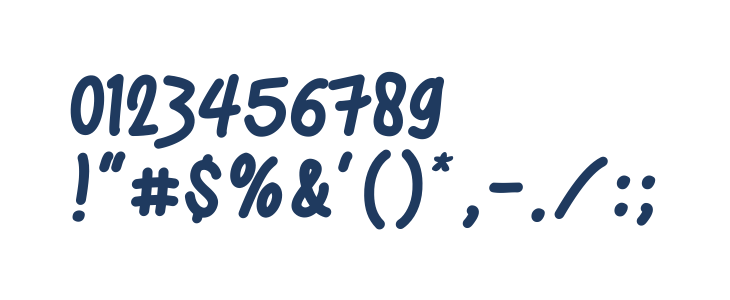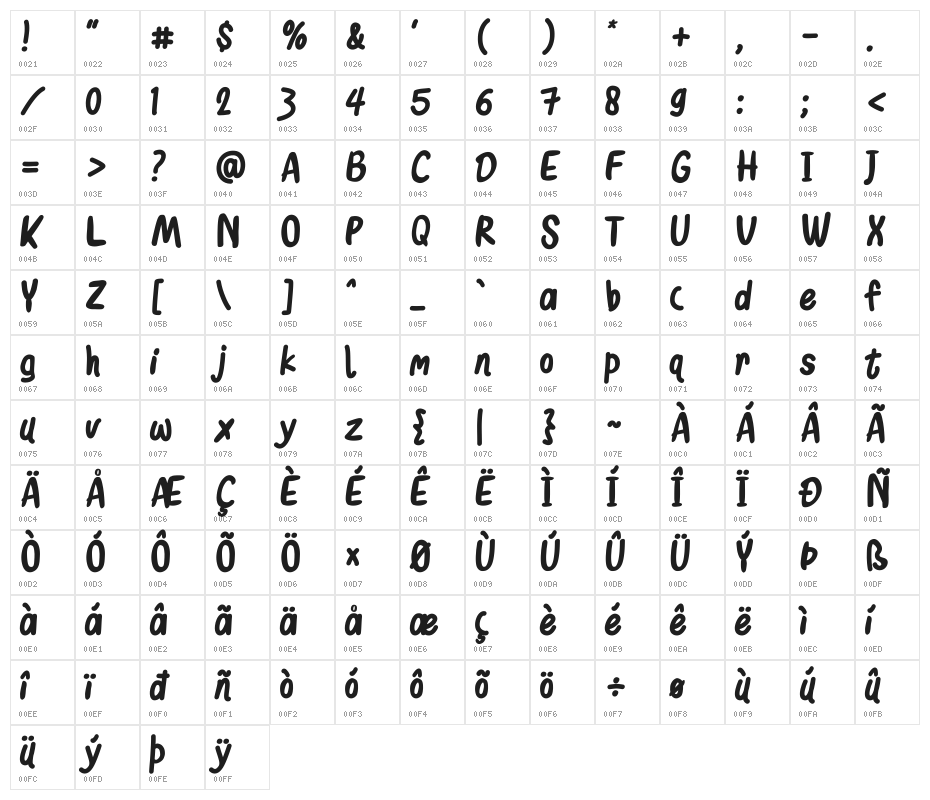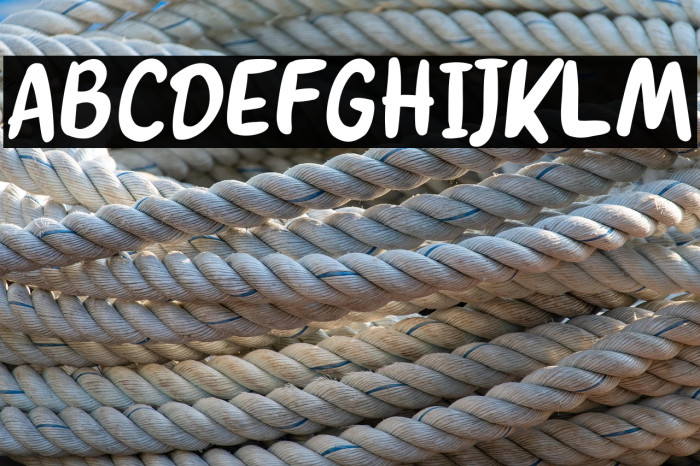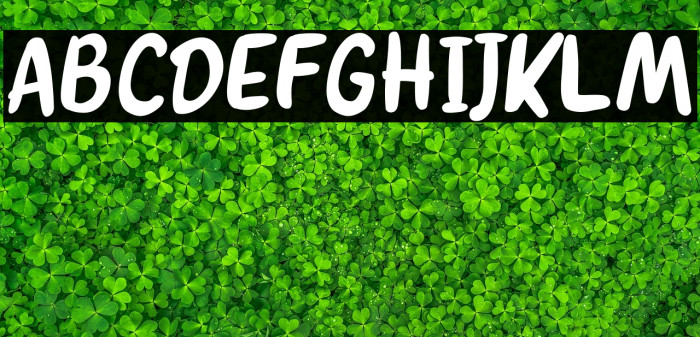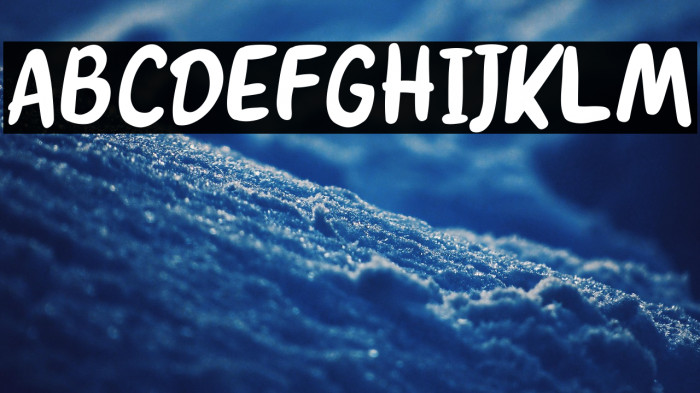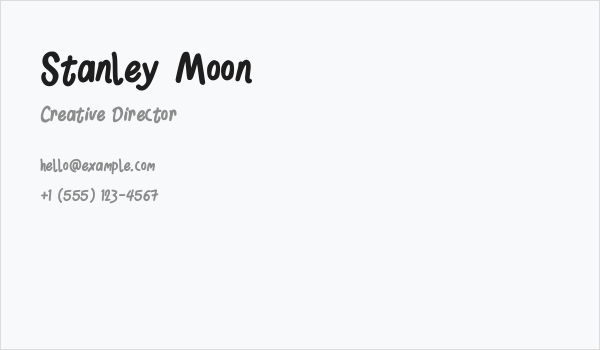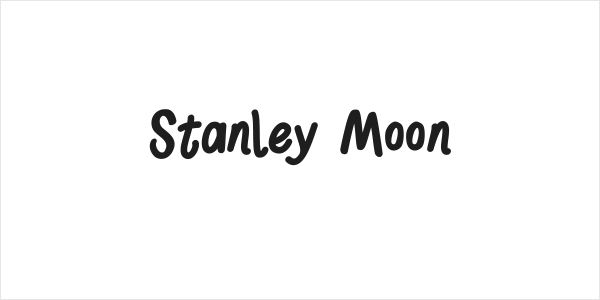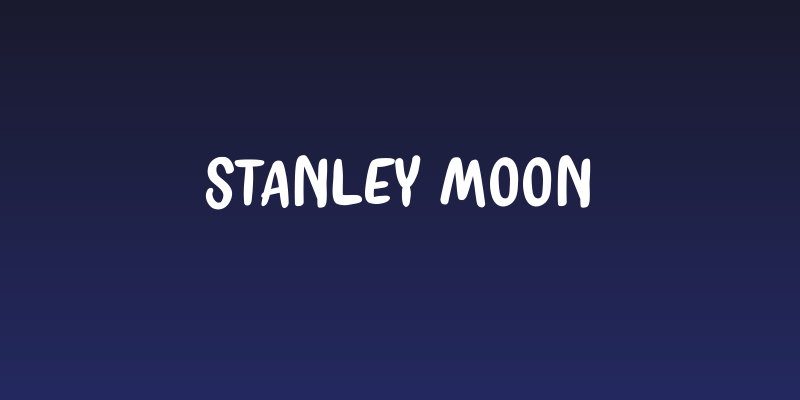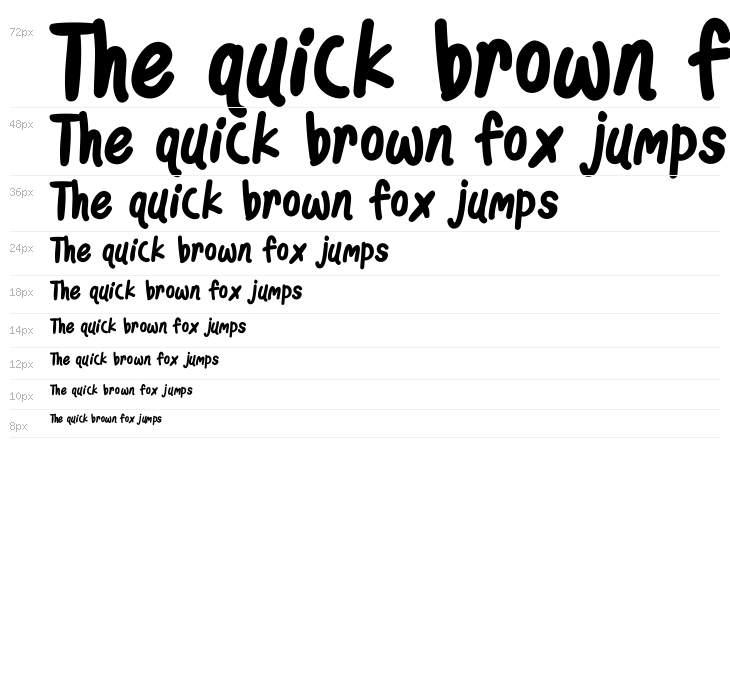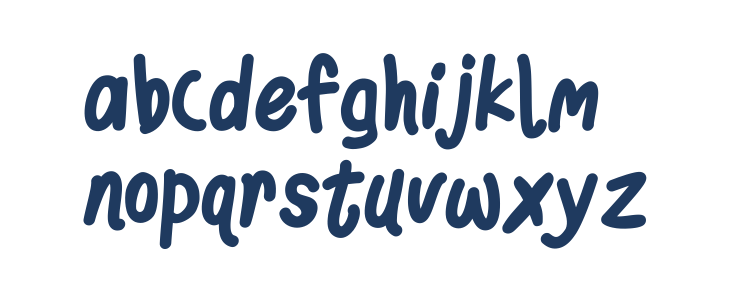
Stanley Moon Font
Stanley Moon Description
This playful and bold font features a handwritten style with smooth, rounded edges and a casual, friendly appearance. The letters are slightly slanted, giving a dynamic and lively feel. The uppercase and lowercase characters maintain a consistent flow, with a uniform stroke width that adds to its approachable nature. The numbers and special characters complement the alphabet with the same whimsical style, making it suitable for creative and informal designs.
| Use Case | Logos, Headlines, Informal Texts |
| Proposed Projects | Ideal for children's books, playful branding, greeting cards, and informal invitations. |